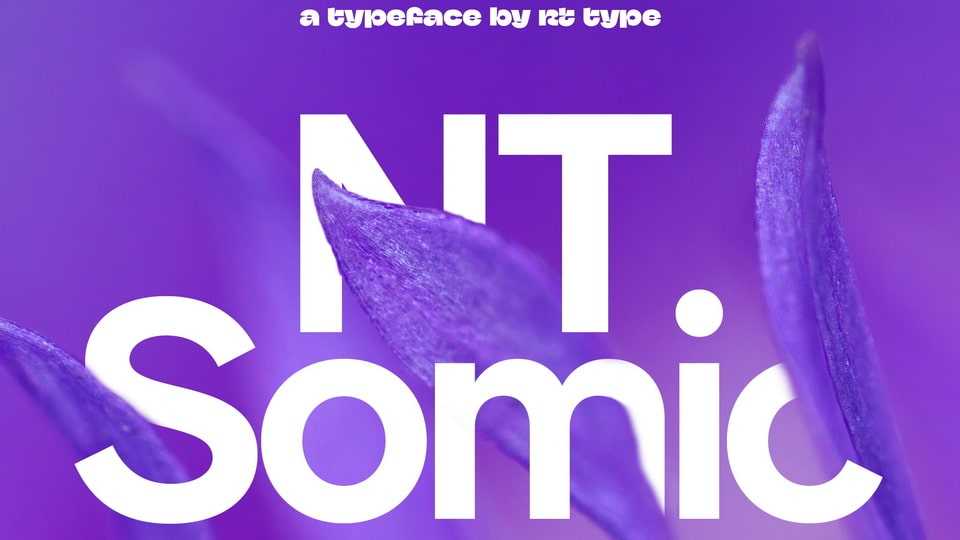
Download NT Somic font, a fresh, simple workhorse typeface. With its clean and minimalist design NT Somic is made to be used everywhere: in headlines, small size texts, credits and any other place you would like to add a little bit of simplicity.